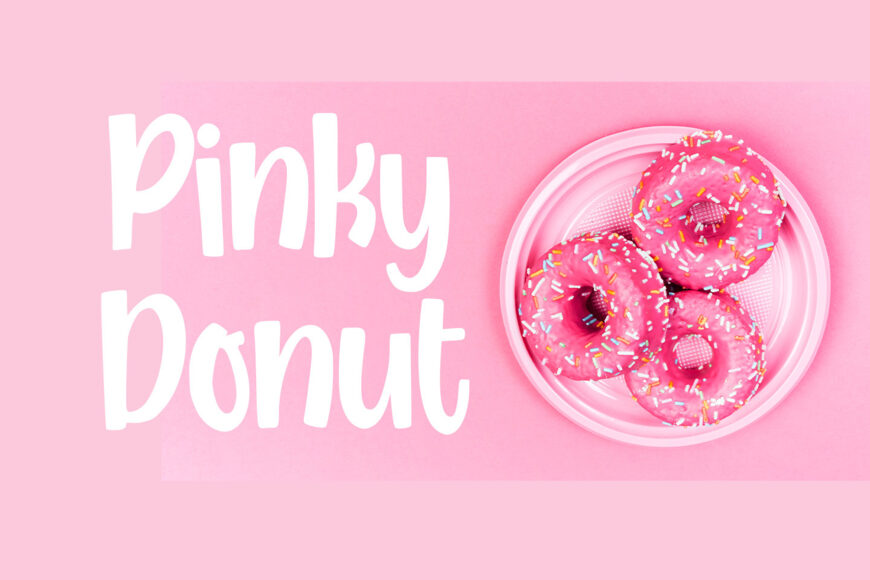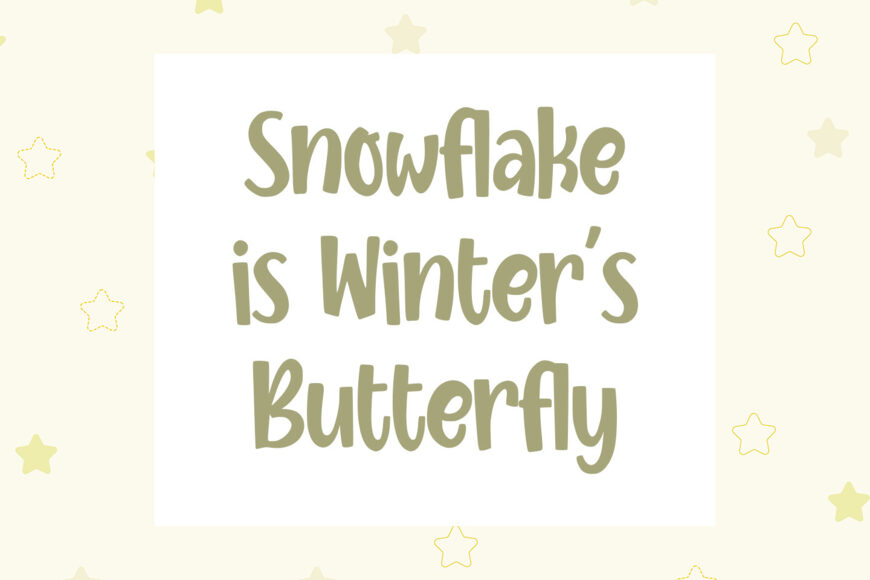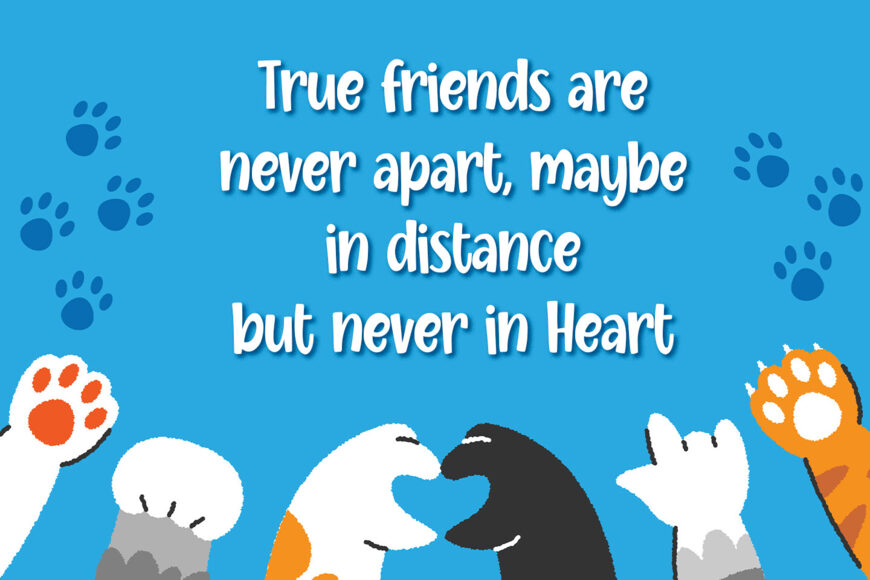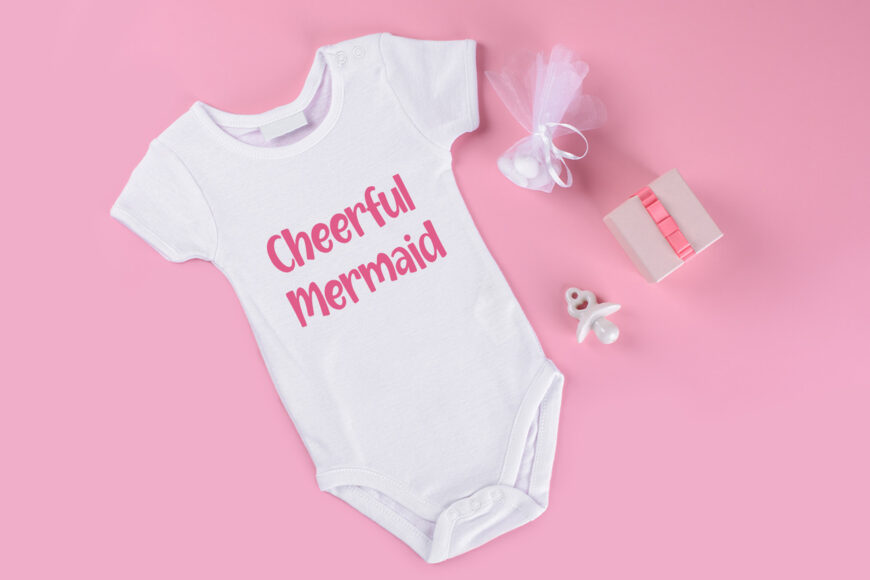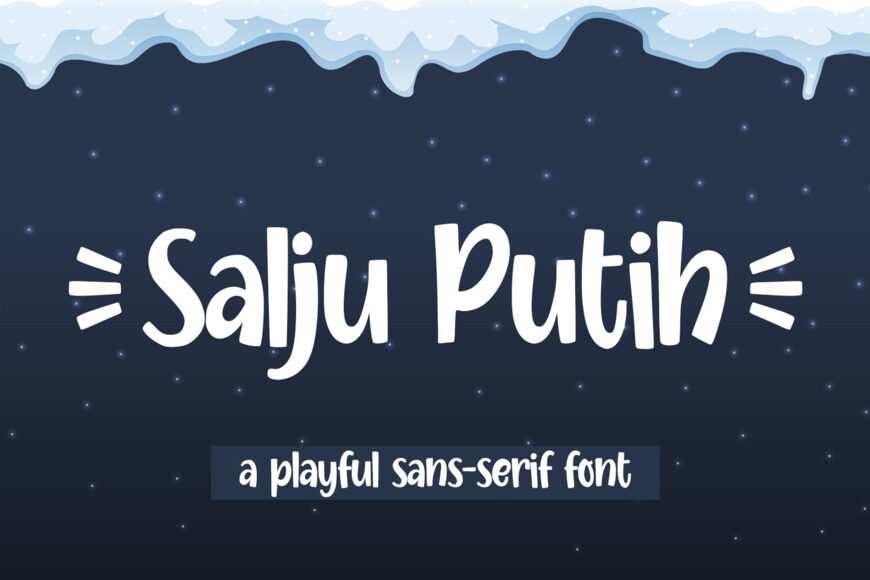
Salju Putih Font
Salju Putih is a playful, charming display font designed by Abo Daniel. Its cheerful and whimsical character makes it a great choice for children’s designs, winter-themed projects, greeting cards, invitations, posters, and creative branding. With its friendly personality and distinctive style, Salju Putih adds a fun and imaginative touch to any design.